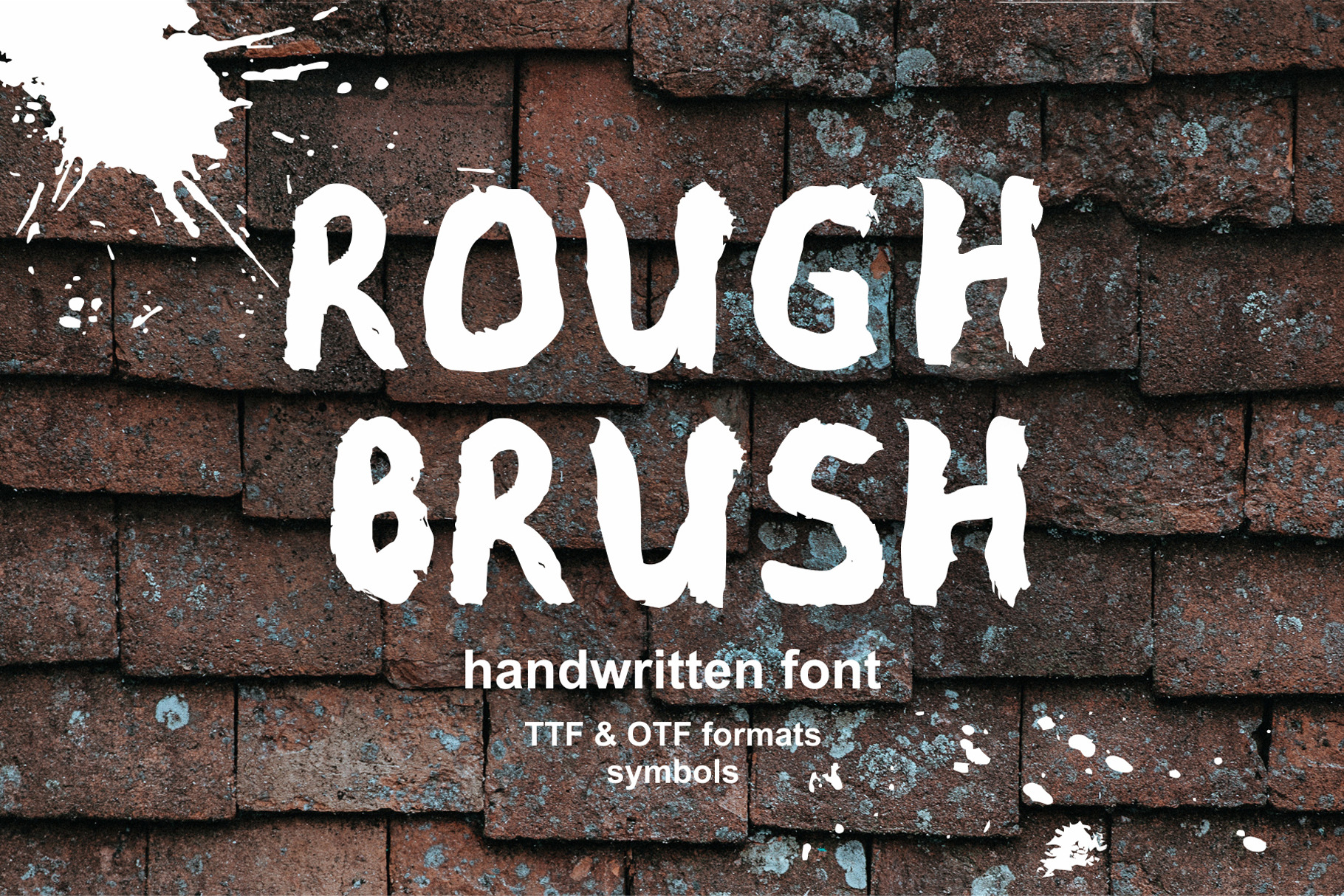
Rough Brush Font
Rough Brush Font - modern handwritten font, imitating a dry brush. With its help you can create many outstanding projects. Rough Brush Font strikingly bold font, with uppercase and small uppercase. Amazing ligature, stand out from the crowd. perfect for any energetic poster. Headline, display, or body text, you name it. Rough Brush will make it perfect.
Rough Brush Font Comes with upper and lowercase characters, large set of punctuation glyphs, numerals, and supports international languages.
Rough Brush Symbol Font Includes 82 hand-made symbols.